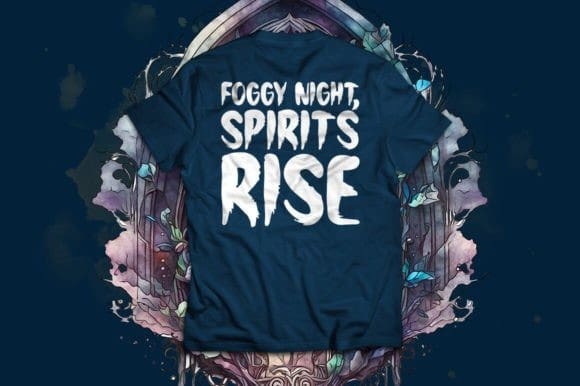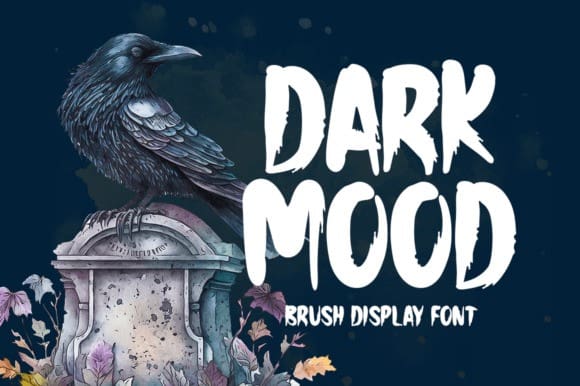
Dark Mood Font
Dark Mood Font, is a unique and interesting display font. A little bit quirky, this font looks incredibly adept on a wide variety of contexts!